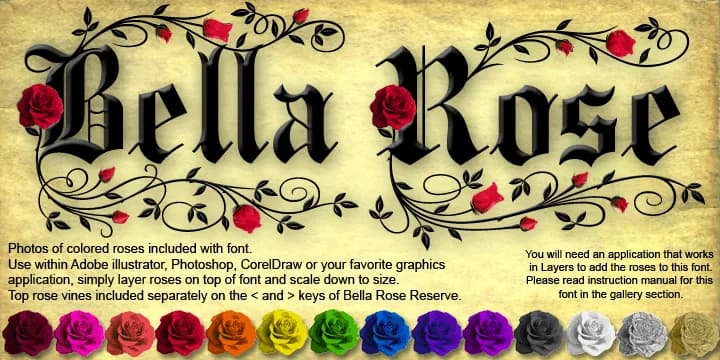
About Bella Rose Font
Picture yourself designing wedding invitation suites with a font that actually has texture and depth built in. Bella Rose, from FontMesa, combines a blackletter typeface with layered rose photography, giving your layouts an organic, romantic feel without requiring separate graphic elements. The roses come as transparent PNG files at 300dpi, so you can place them over your text and adjust them to fit your layout.
The real power here is in the flexibility. You can use the font on its own as a clean blackletter, or overlay the rose images in Photoshop, Illustrator, or CorelDraw to create richer compositions. For boutique skincare packaging or luxury stationery, you might scale the roses down and position them selectively along your layout. High-end event programs and greeting card designs both benefit from this approach since you control where each rose element goes. The separate Bella Rose Alternates font includes 86 OpenType ligatures that swap in automatically as you type, plus additional border elements, letting you refine your letterforms without manual tweaking.
- Ornate, Gothic
- Logos, Certificates
- medieval themes, band merch, and tattoo lettering
- a clean sans-serif for body text
Bella Rose Font is a blackletter font that shines as a display or heading face. Pair it with a clean serif or sans-serif font for body text β the contrast creates a clear hierarchy while the two styles stay balanced and easy to read.
Bella Rose Font